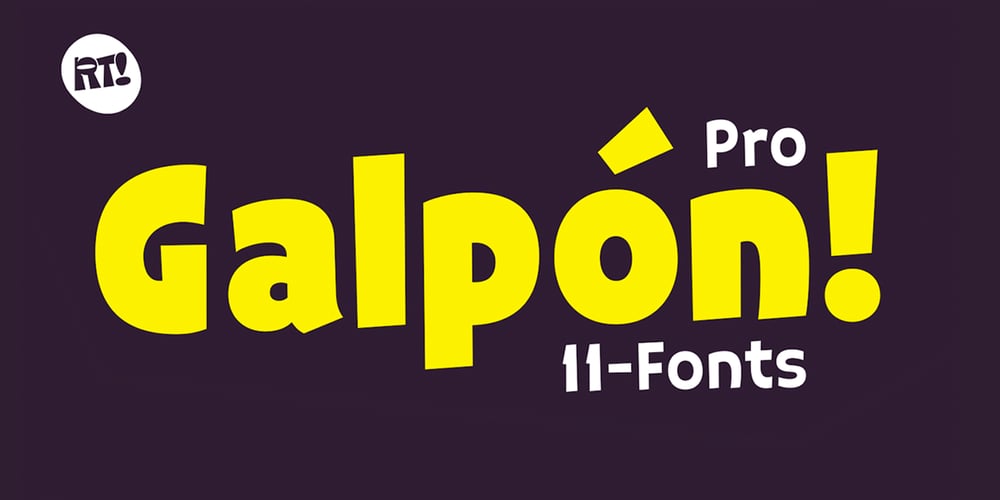
Galpon Pro Font Family was designed by Rodrigo Araya Salas, Bruno Jara Ahumada and published by RodrigoTypo. Galpon Pro contains 11 styles and family package options. Galpon Pro, is an improved version of Galpon, this time it contains Lowercase, Signs and also is in different weights, ideal for entertaining titles!